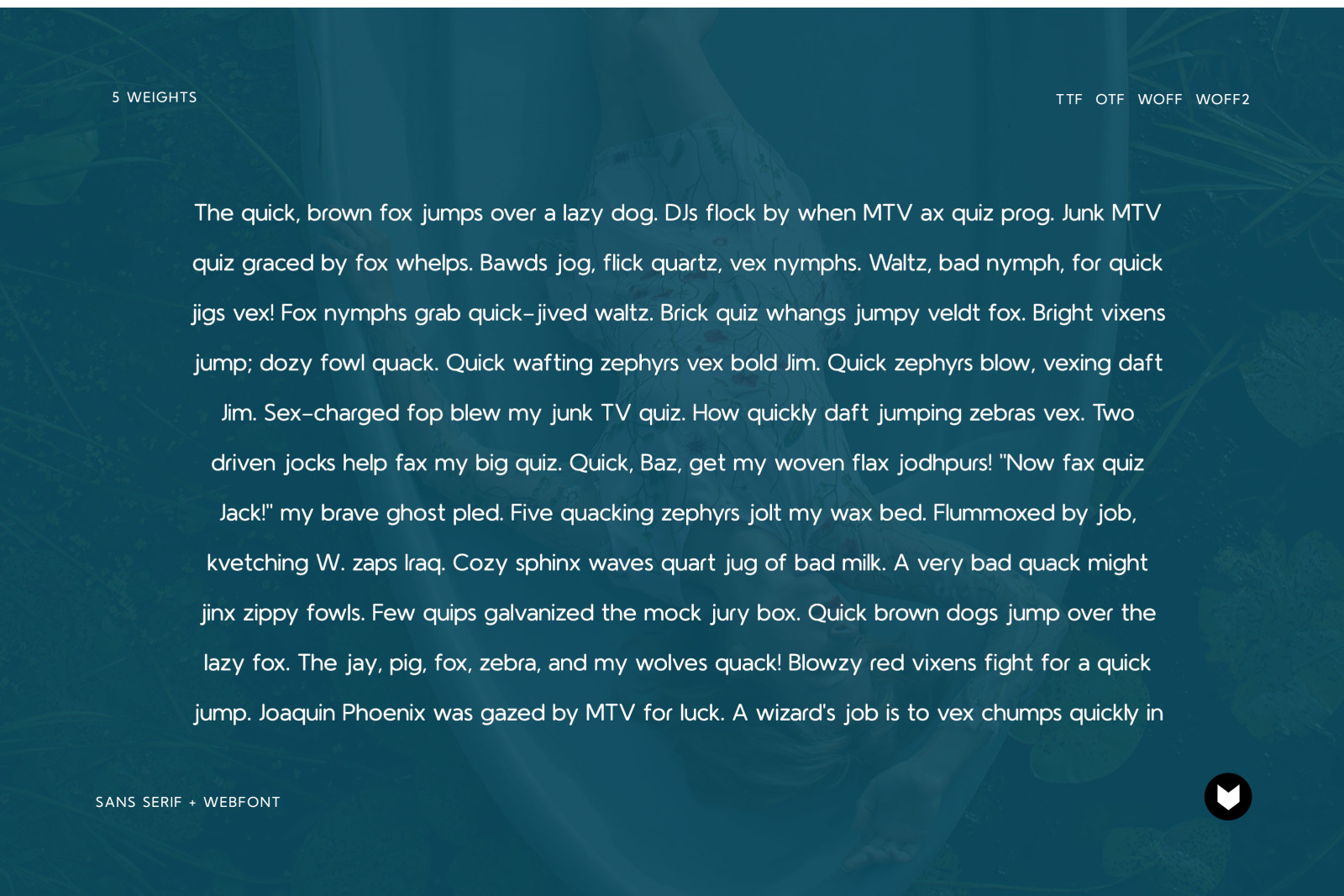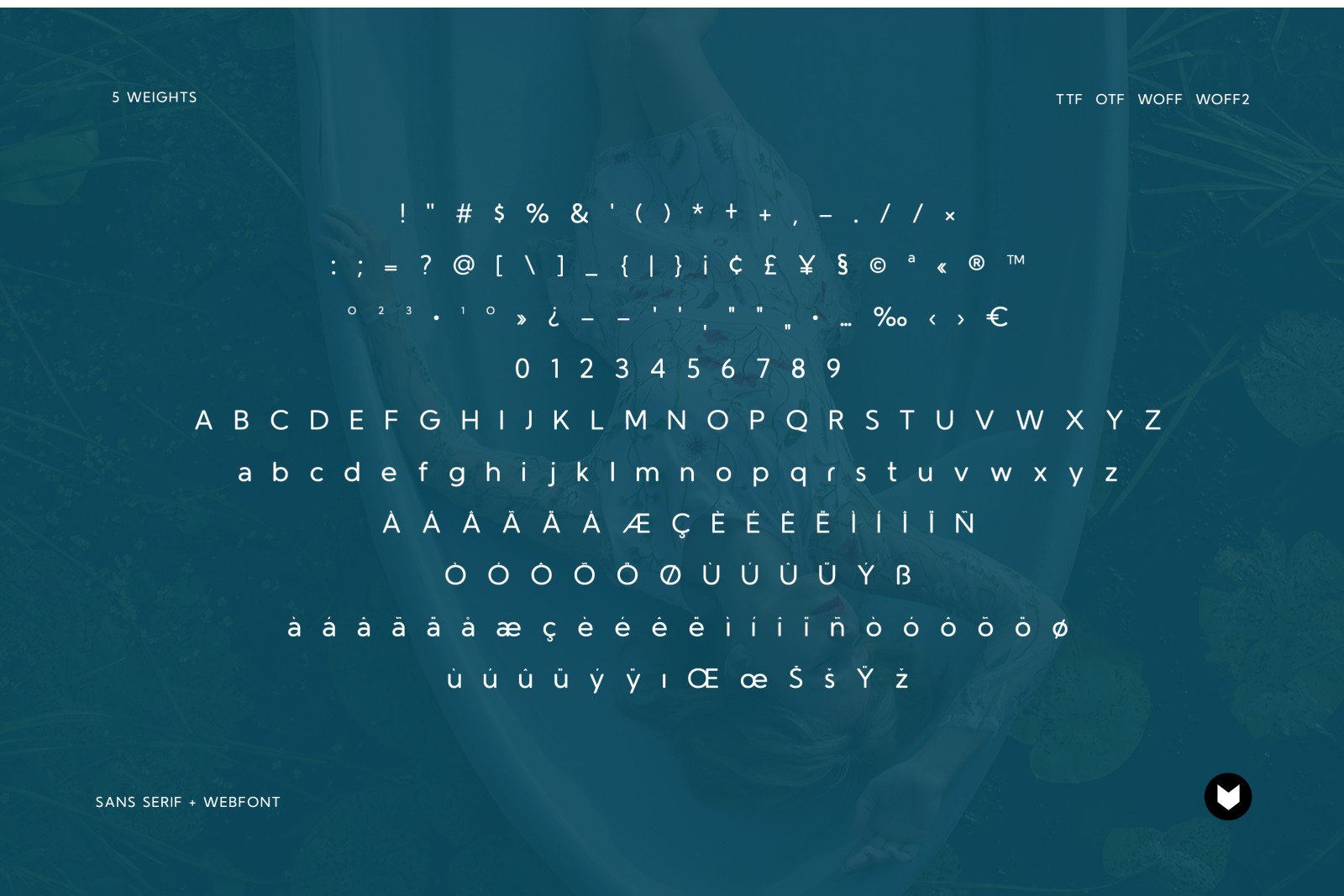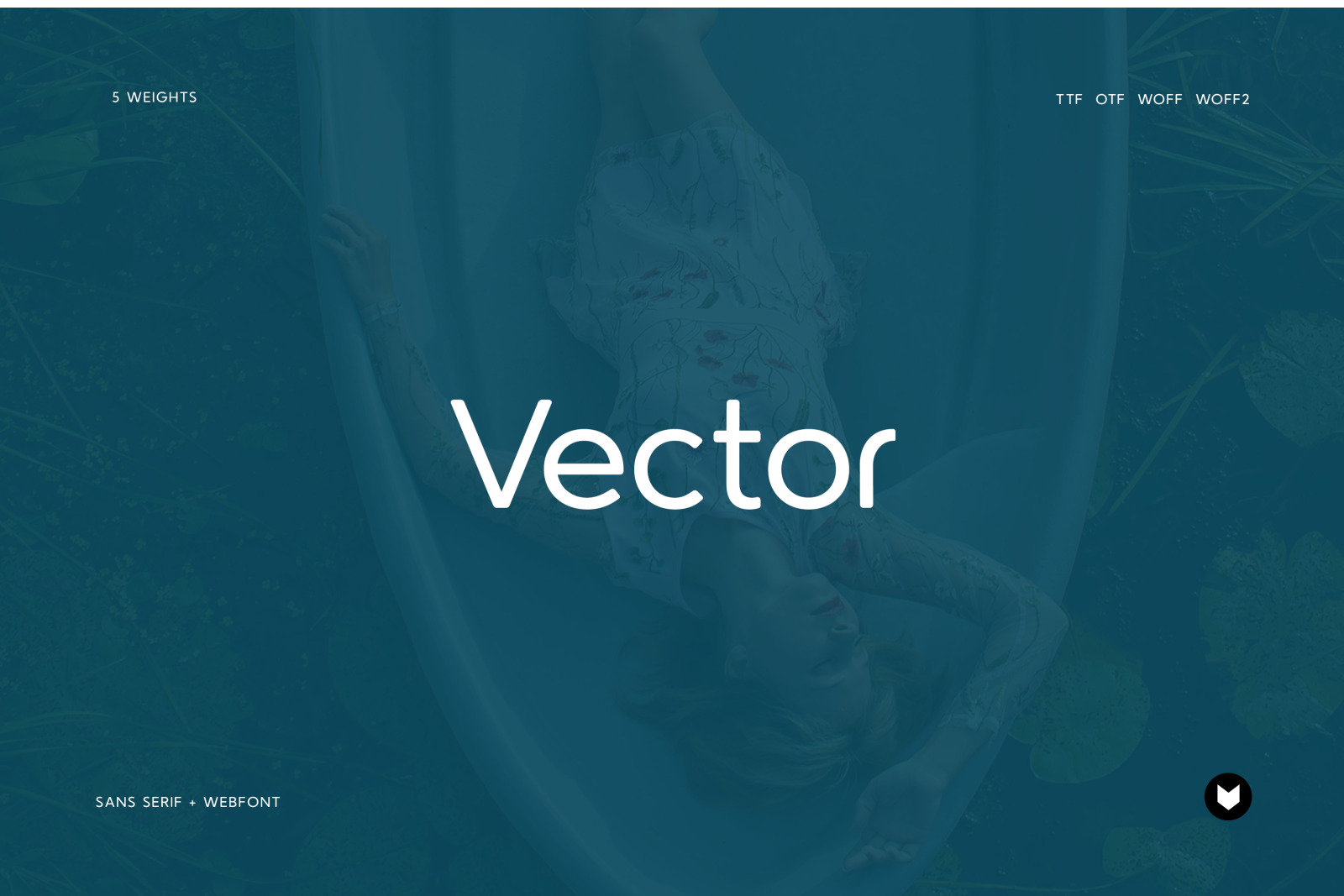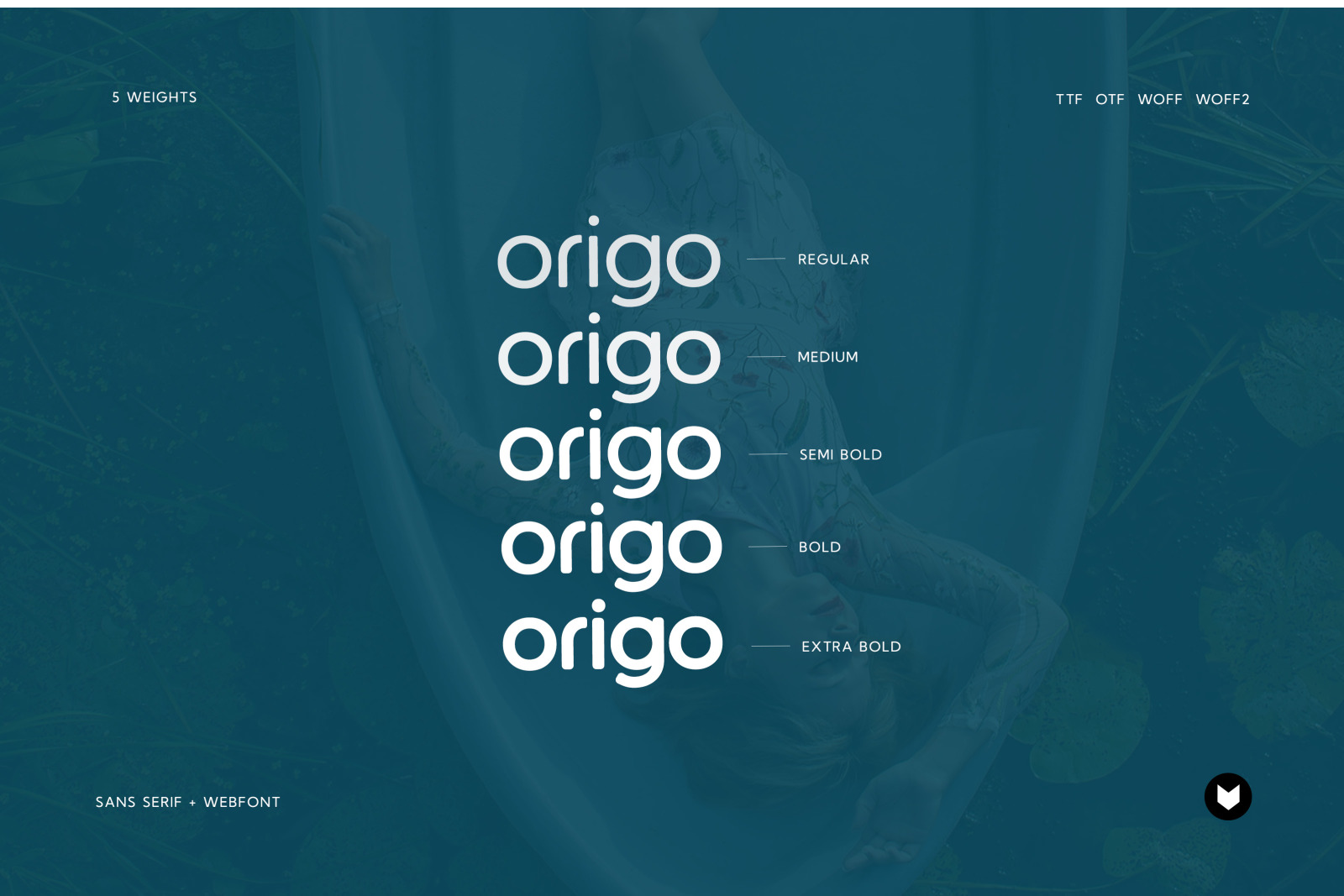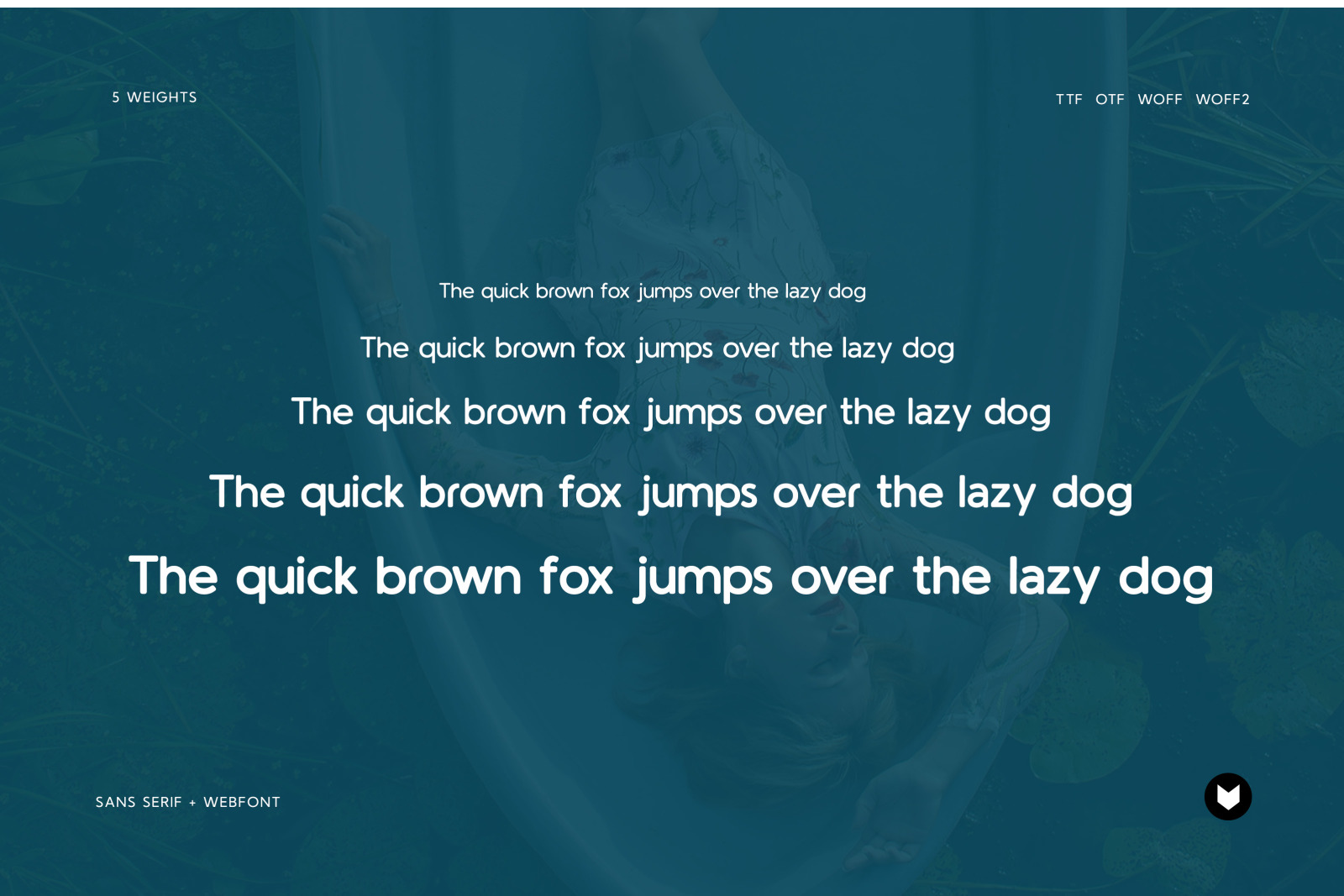
Origo Pro Modern Display Typeface
Origo Pro is a Minimalist Modern Elegant Typeface with Web-fonts. It's a very versatile font that works great in large and small sizes. Origo Pro would perfect for branding, logos, headlines, Captions. or simply as a stylish text overlay to any background image.